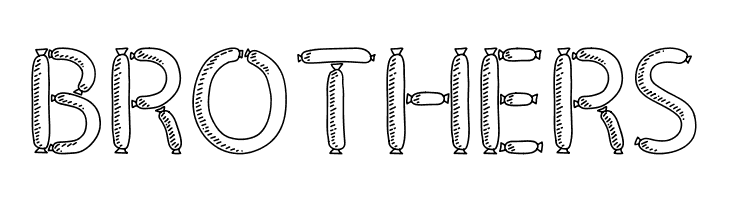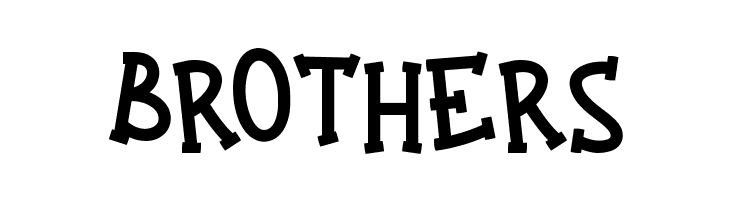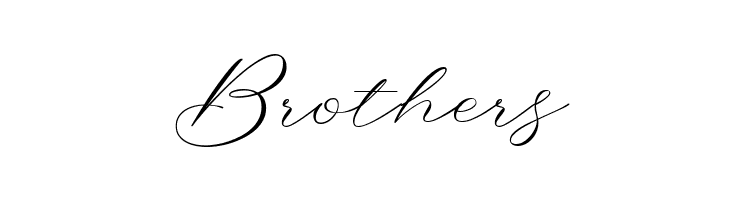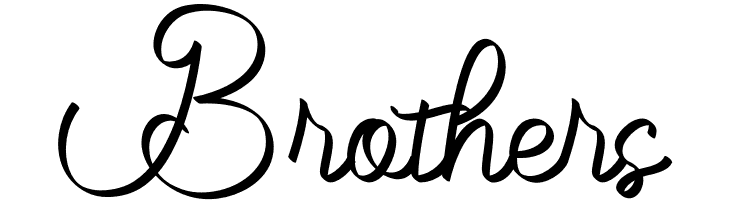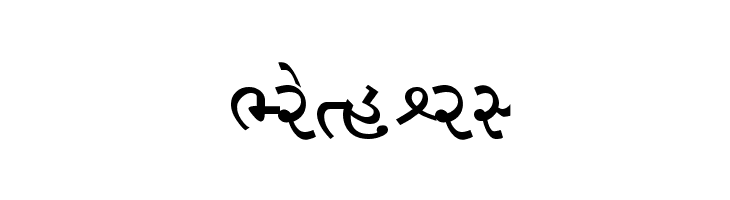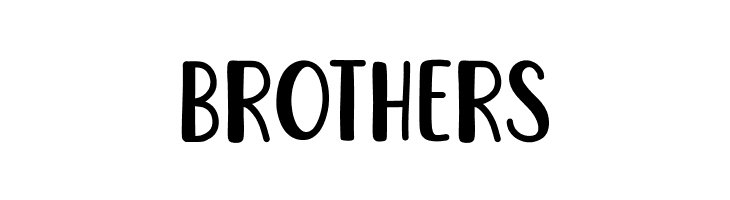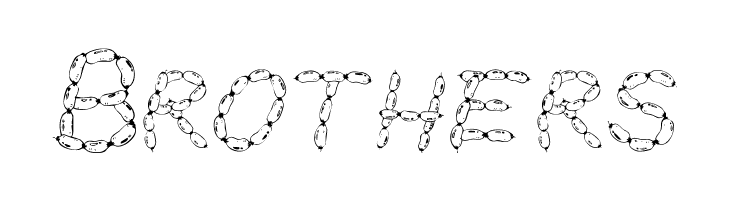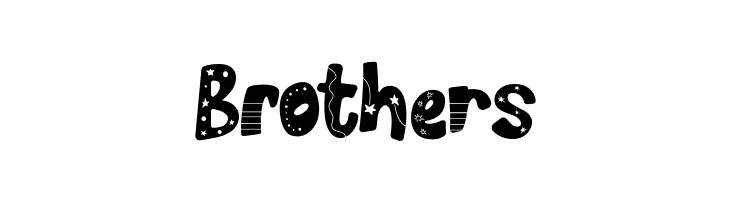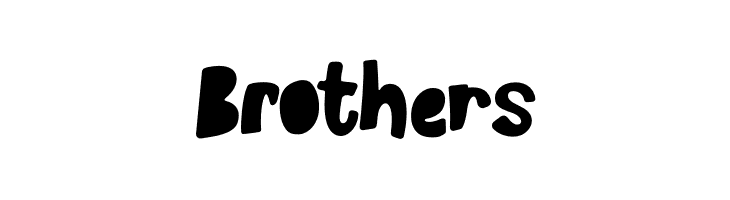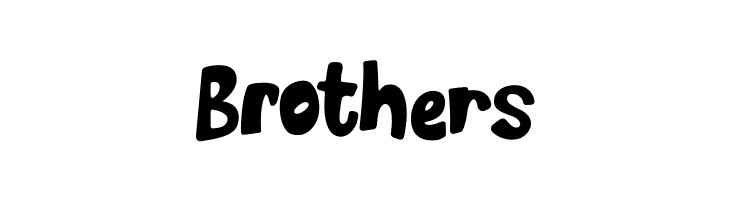
A modern, geometric font with uniform stroke width and clear legibility.
A graceful script font with fluid, connected letters and elegant curves.
A decorative font with whimsical bird illustrations replacing letters and numbers.
A bold blackletter font with sharp, angular lines and a gothic aesthetic.
A bold, angular Blackletter-style font with sharp edges and pointed serifs.
A playful, sausage-like font with rounded, tubular shapes.
A playful, rounded font with a whimsical and bold design.
Bold, geometric font with a modern, condensed style and unique cut-out details.
A bold, geometric font with unique cut-out details for a modern look.
A bold, hollow, 3D-effect font with sharp angles and geometric structure.
A bold, italic, 3D font with a dotted texture and thick outlines.
A bold, decorative font with a 3D effect and intricate patterns.
A playful, sausage-themed decorative font with a whimsical design.
A playful, bold font with whimsical, energetic characters and high contrast.
A bold, playful, and cartoonish hand-drawn font with exaggerated curves.
A bold, decorative font with playful patterns and embellishments.
A decorative grunge font with an inline grid pattern and sharp serifs.
A bold, geometric font with sharp, angular edges and a modern aesthetic.
A bold, edgy font with sharp, angular lines and high contrast, ideal for dynamic designs.
A graceful and flowing script font with elegant, continuous strokes.
A playful, hand-drawn font with rounded edges and a whimsical style.
A playful, hand-drawn font with tall, narrow letters and a whimsical style.